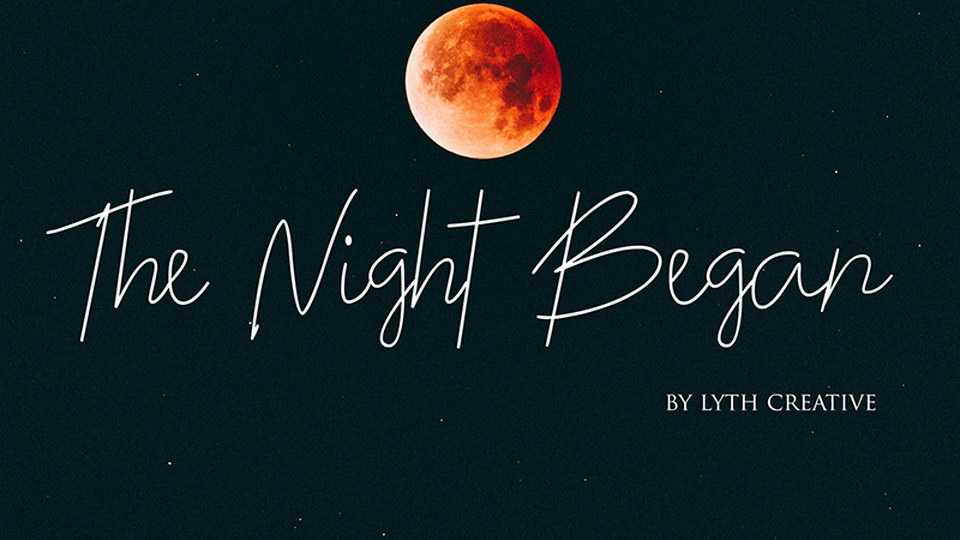
Download The Night Began font, a stylish and light handwritten script. The Night Began font is great for notes, quotes, social media, letters, cards and other casual designs.